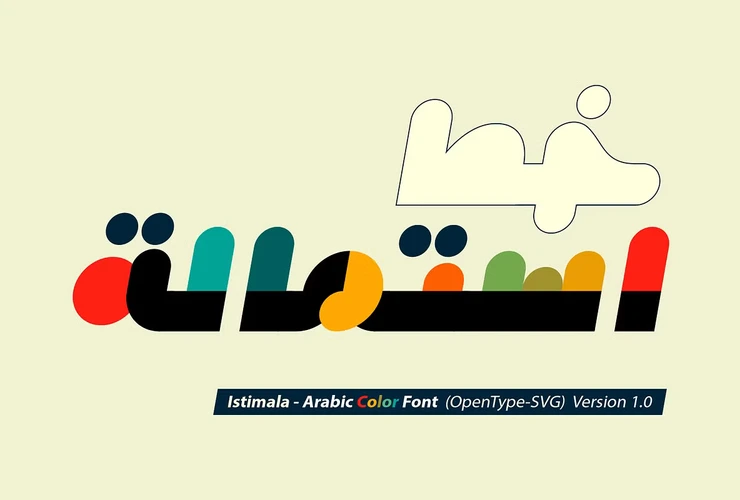
Experience the Vibrancy of Istimala: The Dynamic Arabic Color Font
Unleash the power of creativity with Istimala – Arabic Color Font, a bold and dynamic display font that brings a fresh perspective to Arabic typography. Named after the Arabic word for “Incline,” Istimala is designed to add a contemporary flair to your projects, whether you’re working on web, print, or mobile applications. This unique font stands out with its vibrant color formats, making it an ideal choice for modern designs that require a touch of innovation and cultural relevance.
What Makes Istimala Stand Out?
Istimala isn’t just another Arabic font—it’s a revolution in design. This OpenType-SVG font offers three different color formats: SVG.TTF, COLR, and SBIX, alongside a regular black font in OTF format. The combination of traditional Arabic script with modern color formats makes Istimala a versatile choice for various creative projects. It’s perfect for designers who want to make a bold statement while staying true to cultural roots.
Key Features of Istimala:
Dynamic Arabic Display Font: Istimala’s fresh letterform design adds a modern twist to traditional Arabic typography.
Multiple Color Formats: Includes SVG.TTF, COLR, and SBIX, allowing for vibrant, eye-catching designs.
Regular Black Font Option: For more classic applications, Istimala also includes a regular black font in OTF format.
Versatile Use: Ideal for web, print, and mobile applications, providing flexibility for a wide range of design projects.
Istimala is perfect for projects that require a blend of tradition and modernity. Use it in:
Branding and Logos: Create standout logos that are both culturally resonant and visually striking.
Web Design: Enhance your website with vibrant, dynamic typography that grabs attention.
Mobile Applications: Make your apps visually appealing with a font that adds a splash of color and personality.
Print Media: From brochures to posters, Istimala adds a contemporary edge to traditional Arabic script.
Istimala – Arabic Color Font is more than just a font; it’s a gateway to modern Arabic design. Its dynamic and colorful letterforms offer endless possibilities for creative expression, making it a must-have for any designer working with Arabic typography. Whether you’re designing for the web, mobile, or print, Istimala provides the tools you need to make your projects stand out.